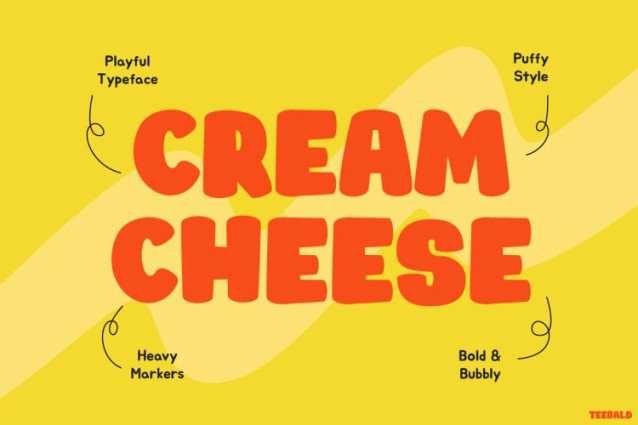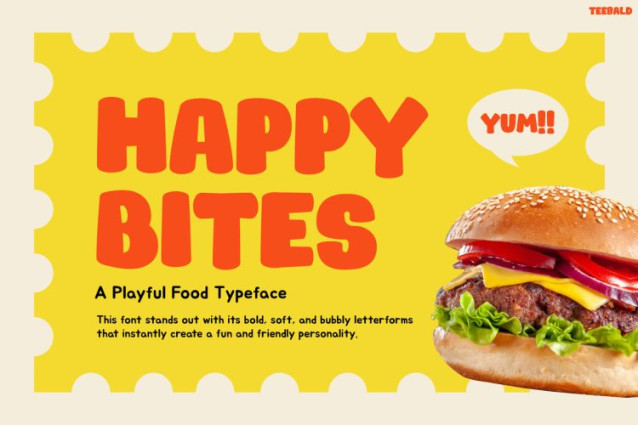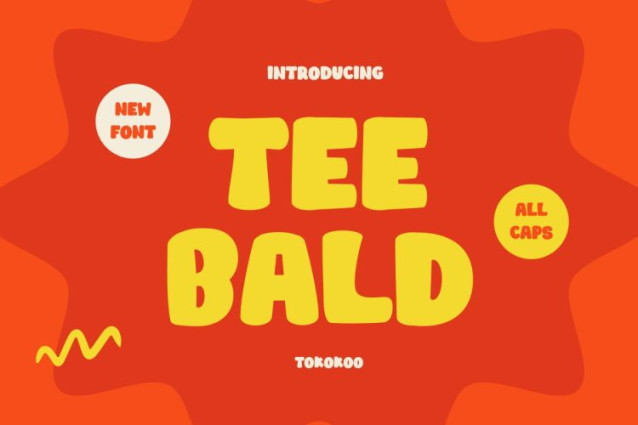
Teebald Font
Teebald Font is a bold and energetic display font designed to bring playful excitement to creative designs. Its chunky letterforms, rounded edges, and cheerful proportions create a lively personality that instantly attracts attention. The font feels fun, friendly, and full of character, making every word look expressive and engaging. Because of its strong visual weight, Kids TEEBALD works perfectly for bold titles and playful headlines. At the same time, the soft curves keep the typography approachable and easy to read. As a result, this font delivers a perfect balance between fun aesthetics and clear communication. Whether used in colorful layouts or bright promotional graphics, TEEBALD helps designs feel joyful, energetic, and memorable.
TEEBALD features thick, rounded characters that create a bold and playful visual style. The letter shapes feel smooth and bouncy, giving designs a cheerful tone that stands out immediately. Moreover, the font pairs beautifully with bright colors, cartoon illustrations, and fun shapes. Because of its strong personality, it works perfectly for eye-catching headlines, kids menus, posters, and promotional graphics. In addition, the bold style ensures excellent readability even at large sizes. This makes it ideal for titles, packaging labels, signage, and social media designs. With its lively appearance, Kids Font TEEBALD helps designers create visuals that feel dynamic and full of positive energy.